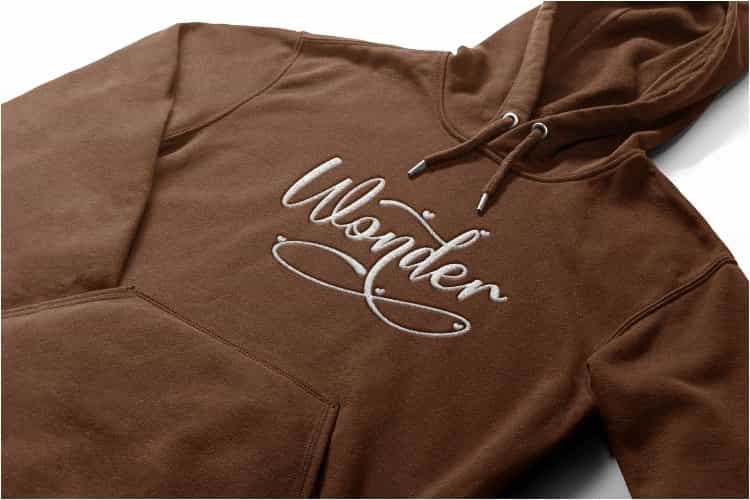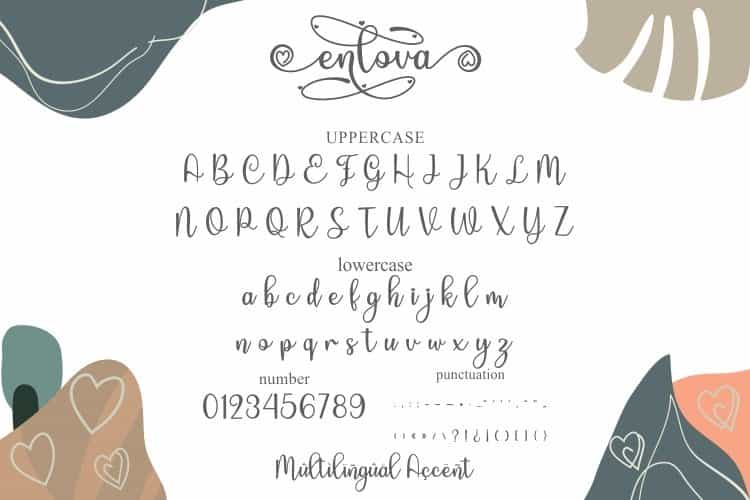
Enlova is a beautiful calligraphy font that can give a professional and delicate look to any design work that you implement it on. Enlova is perfect for emblem designs, and branding tasks along with stationery items for example invitations, wedding invitations ads, social media marketing posts, packaging merchandise, photography marks, labels, watermarks, and so on; it can change the appearance of any product to look fabulous and elegant.